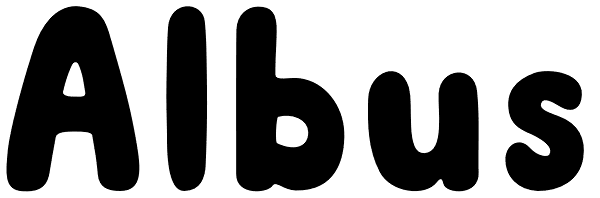
Albus
Albus is bold and friendly. It is your wizard when you're lost in communication. Perfect for the not so serious statements, or maybe for the very serious ones? Maybe it fits on your next children’s book, or maybe on your webshop? The Albus Friends...
Albus Friends
Albus
Albus Shine
Albus Grand Shadow
Albus Shadow